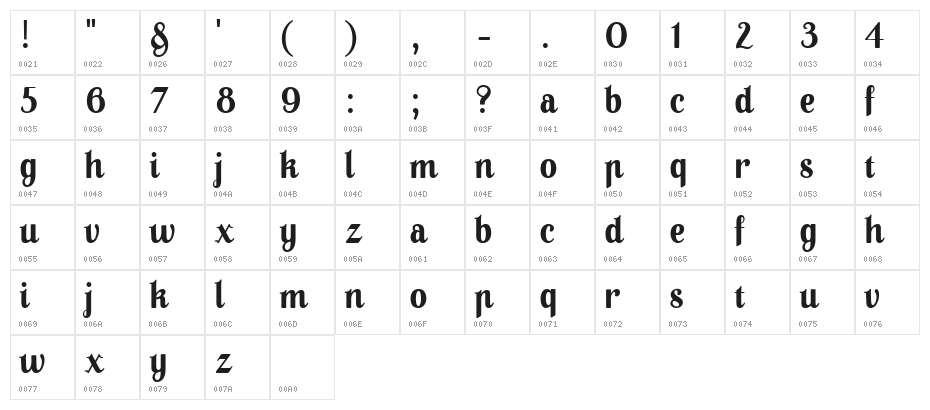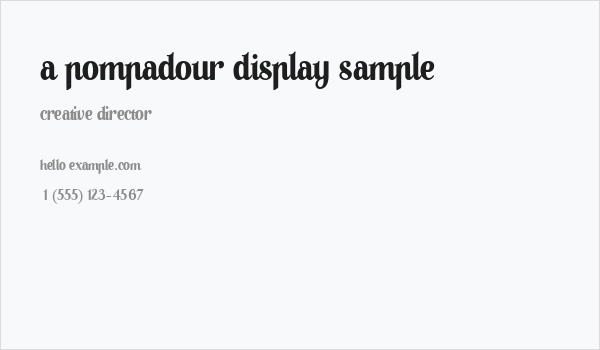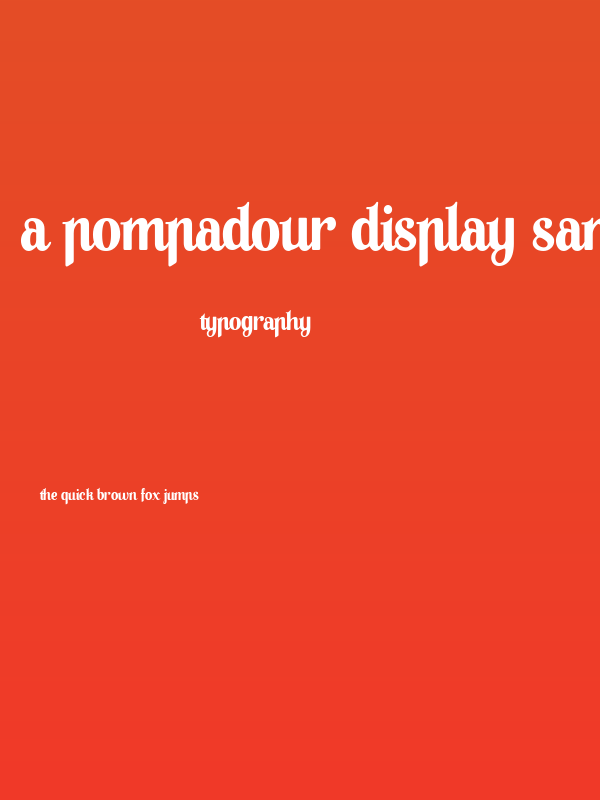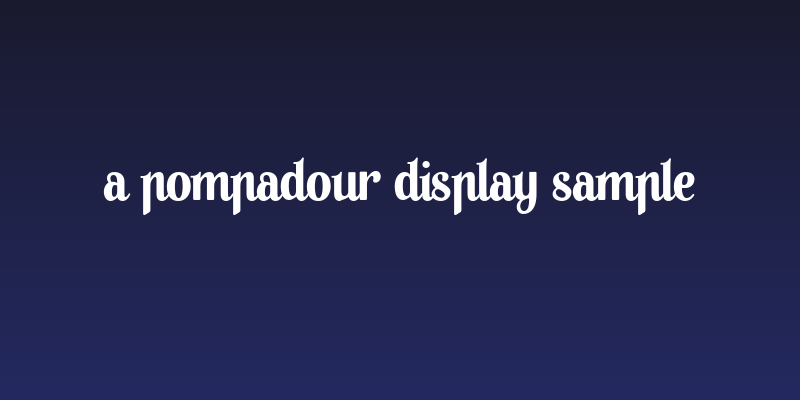
A Pompadour Display Sample Font
A Pompadour Display Sample Description
This font features a bold and expressive style with a distinct retro flair. The characters are characterized by thick strokes and high contrast, giving them a strong presence on the page. The uppercase and lowercase letters share a cohesive design, with rounded edges and a playful yet sophisticated look. The numerals are equally bold, maintaining the overall aesthetic of the font. Special characters are designed to complement the letters, adding to the font's versatility. This font is ideal for projects that require a touch of vintage charm and boldness.
| Proposed Projects | Ideal for vintage-themed posters, branding, and headlines that require a bold statement. |